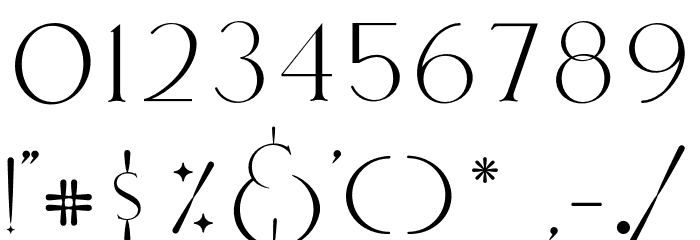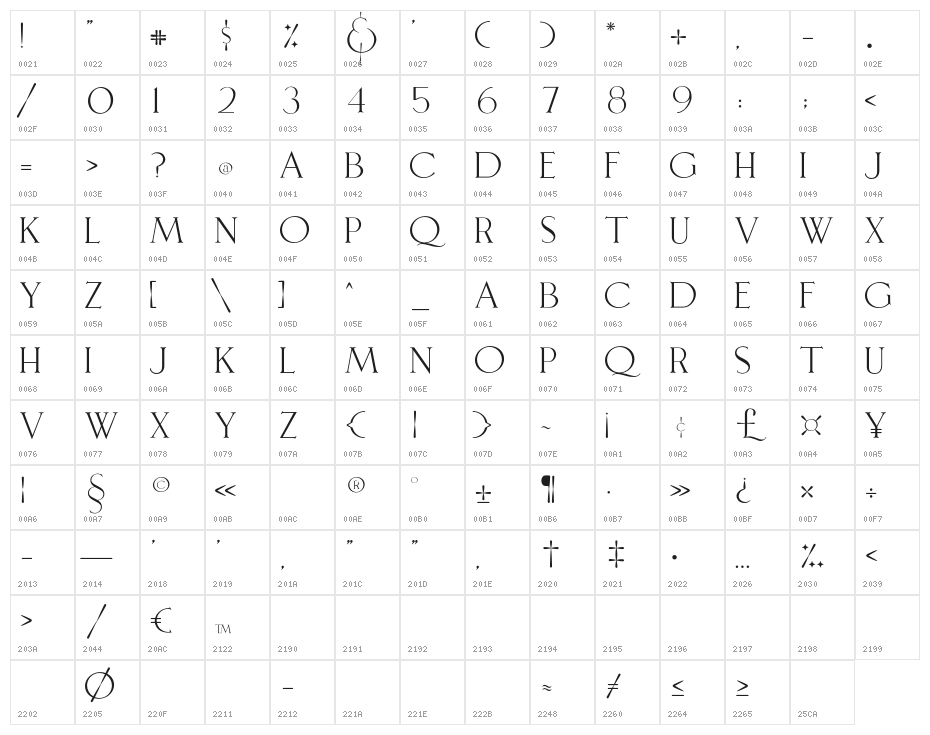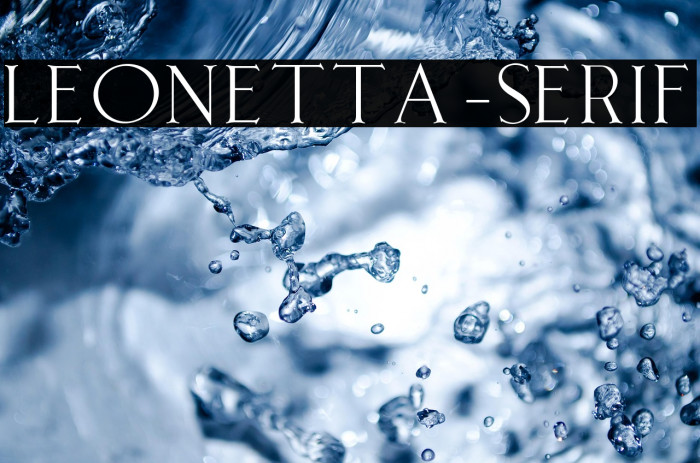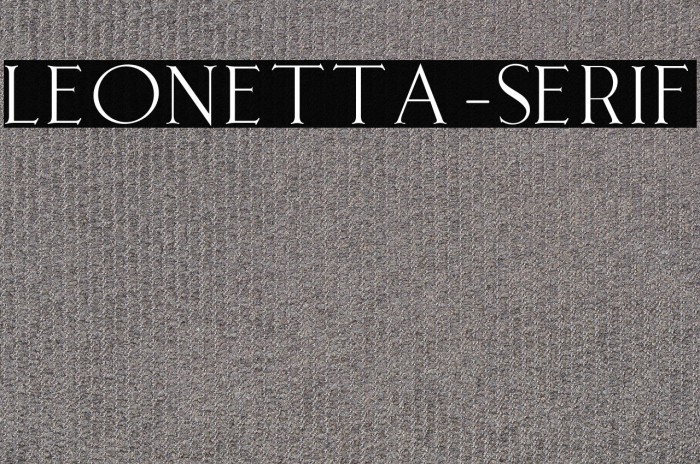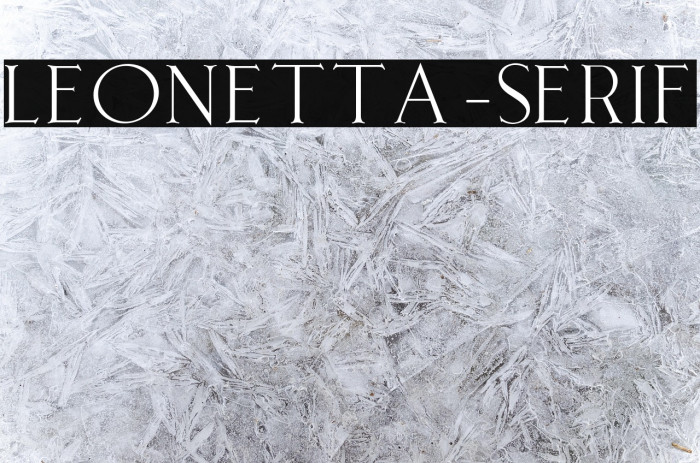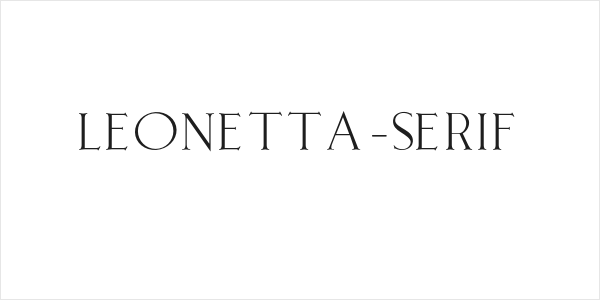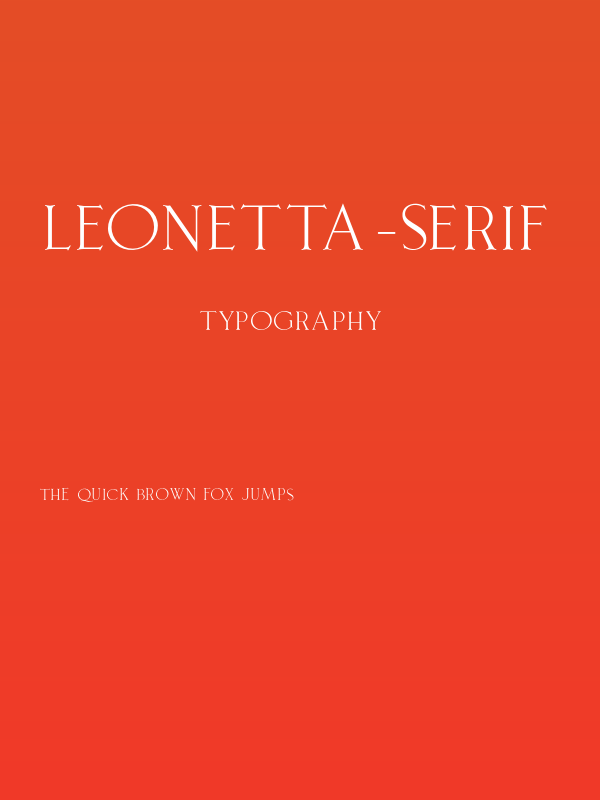
Leonetta-Serif Font
Leonetta-Serif Description
This elegant serif font features a refined and sophisticated design, characterized by its thin, elongated strokes and subtle curves. The uppercase letters exhibit a classic and timeless appeal, with sharp serifs that add a touch of formality and grace. The lowercase letters maintain a consistent style, offering a harmonious blend of traditional and modern elements. The numerals are well-proportioned, ensuring readability and aesthetic balance. Special characters are thoughtfully designed, complementing the overall style of the font. This font is ideal for projects that require a touch of elegance and sophistication, such as wedding invitations, luxury branding, and editorial design.
| Proposed Projects | Ideal for wedding invitations, luxury branding, and editorial design. |